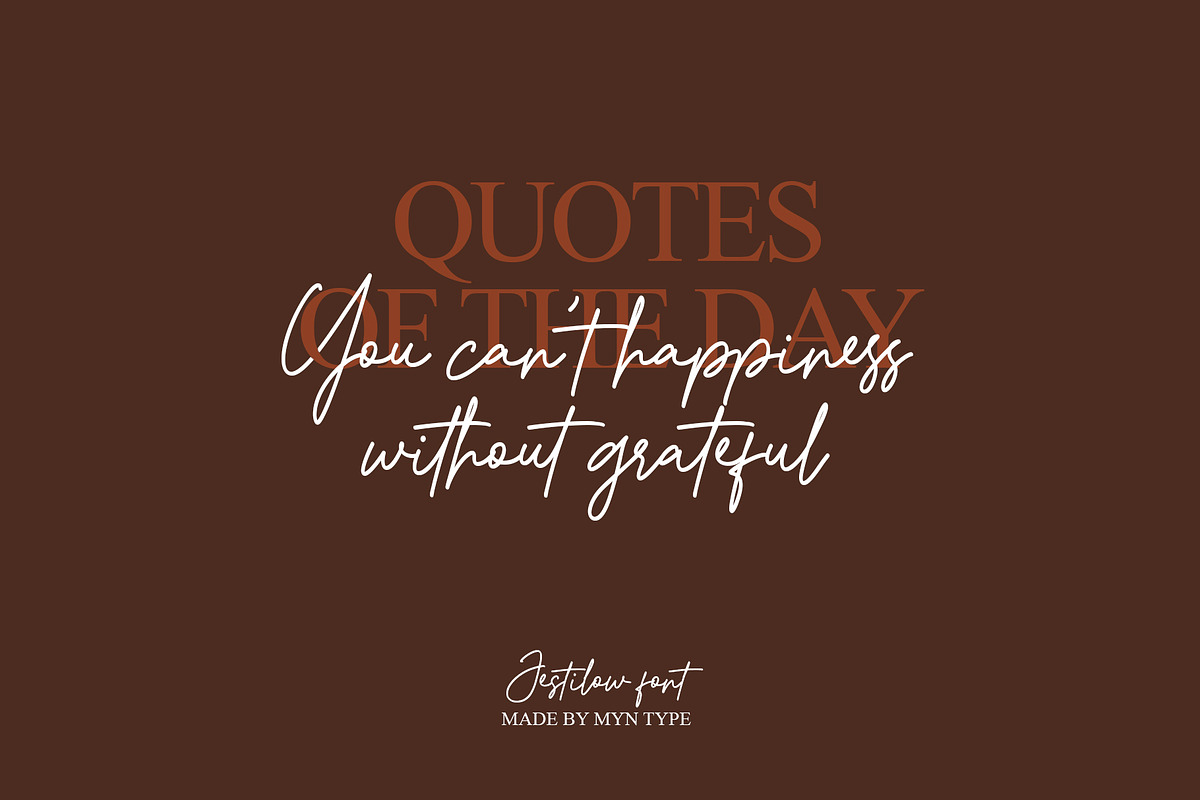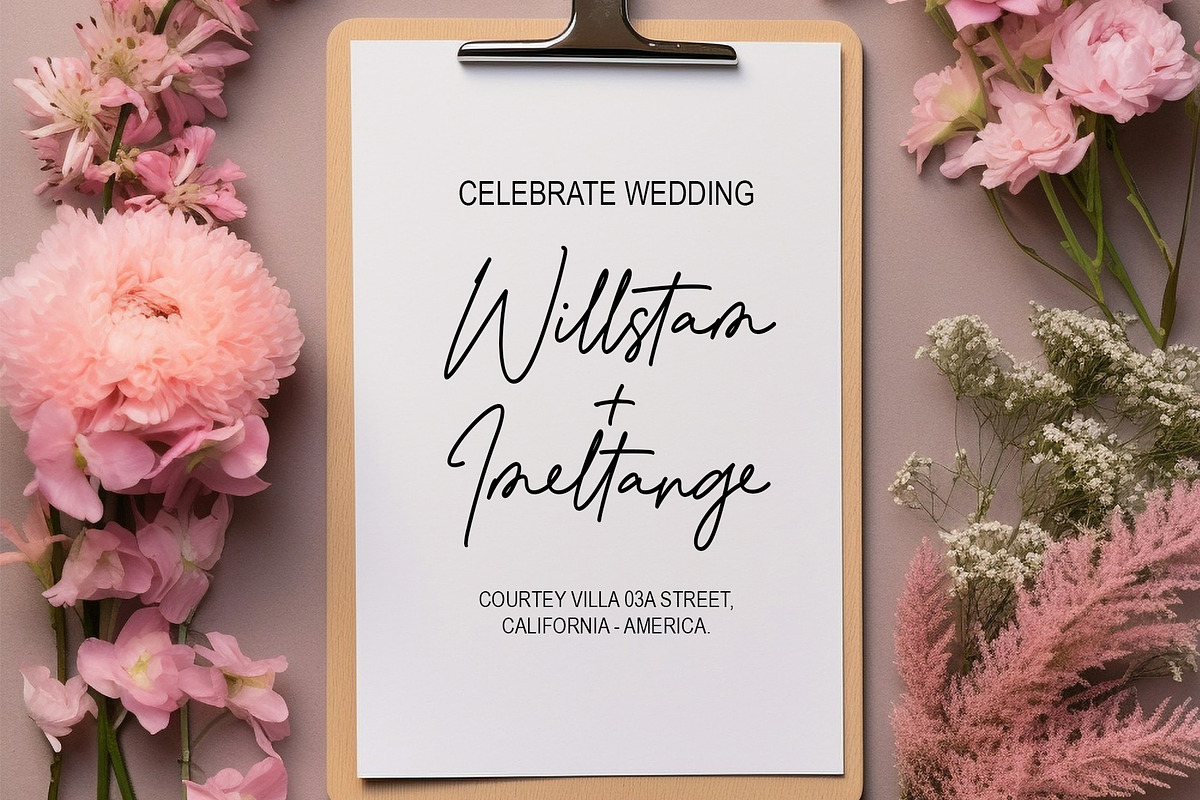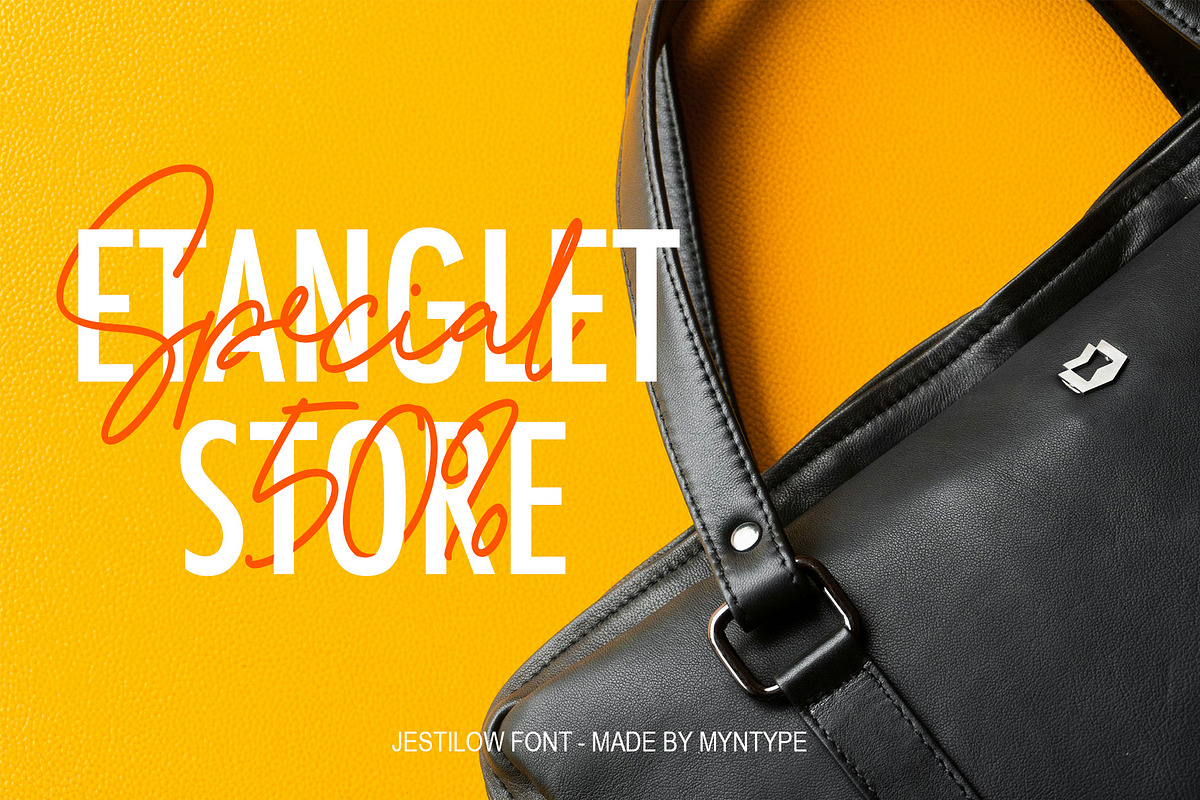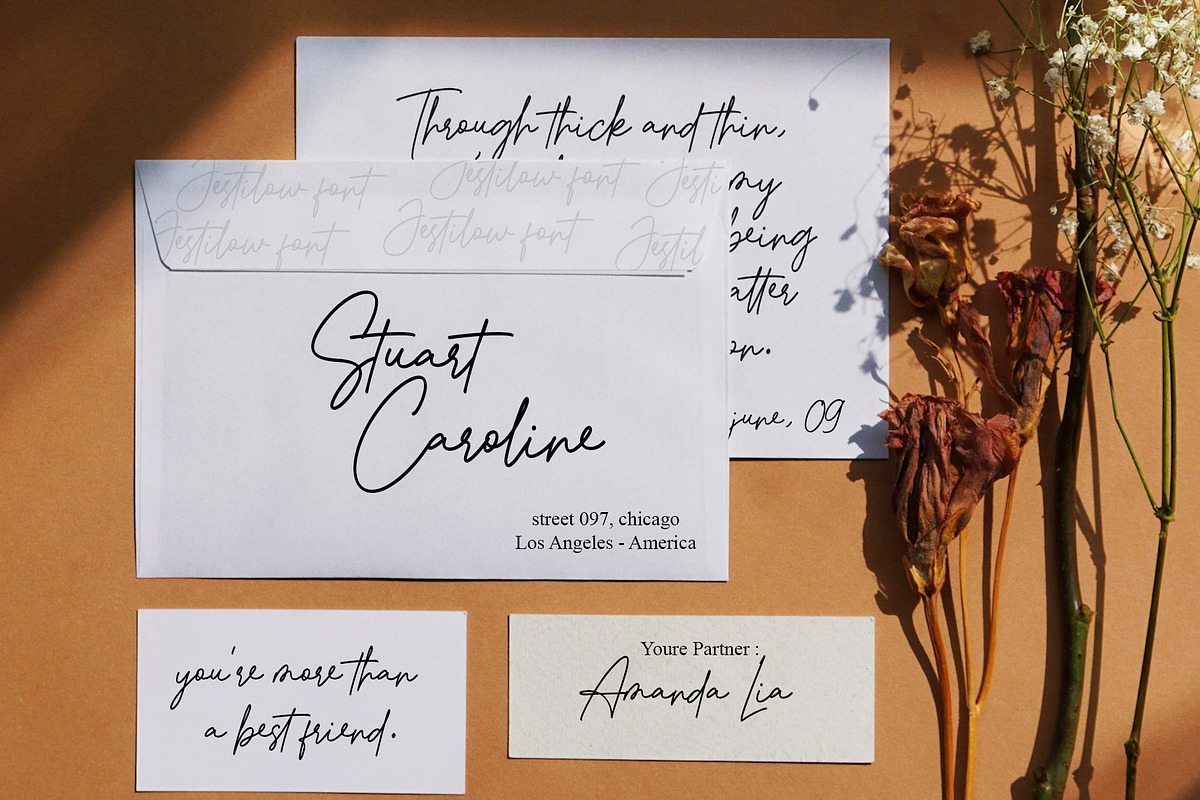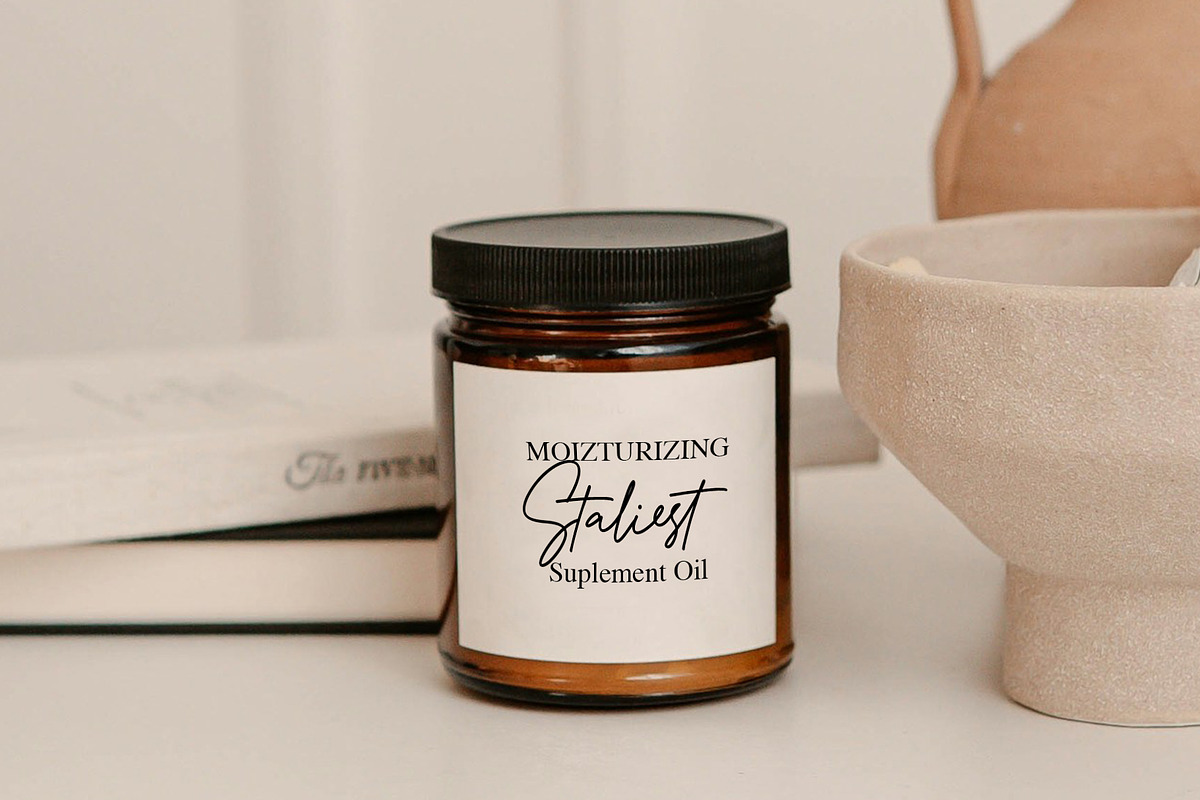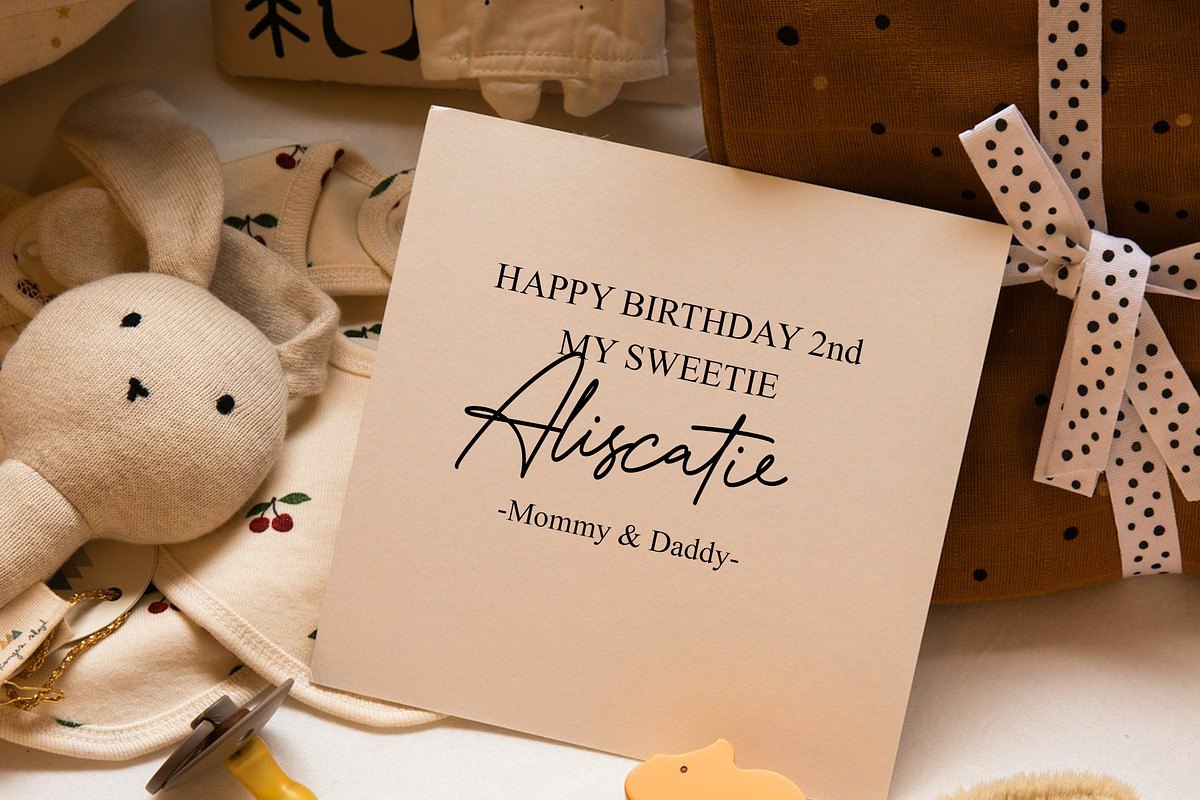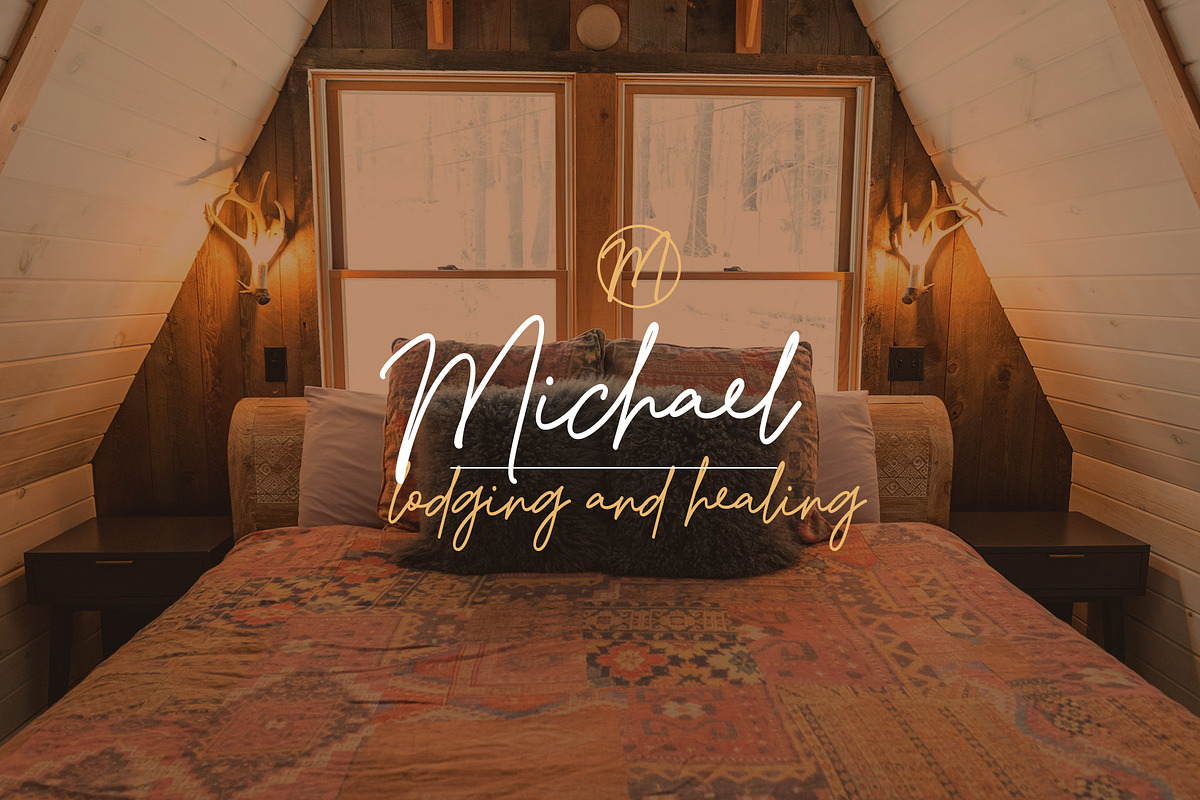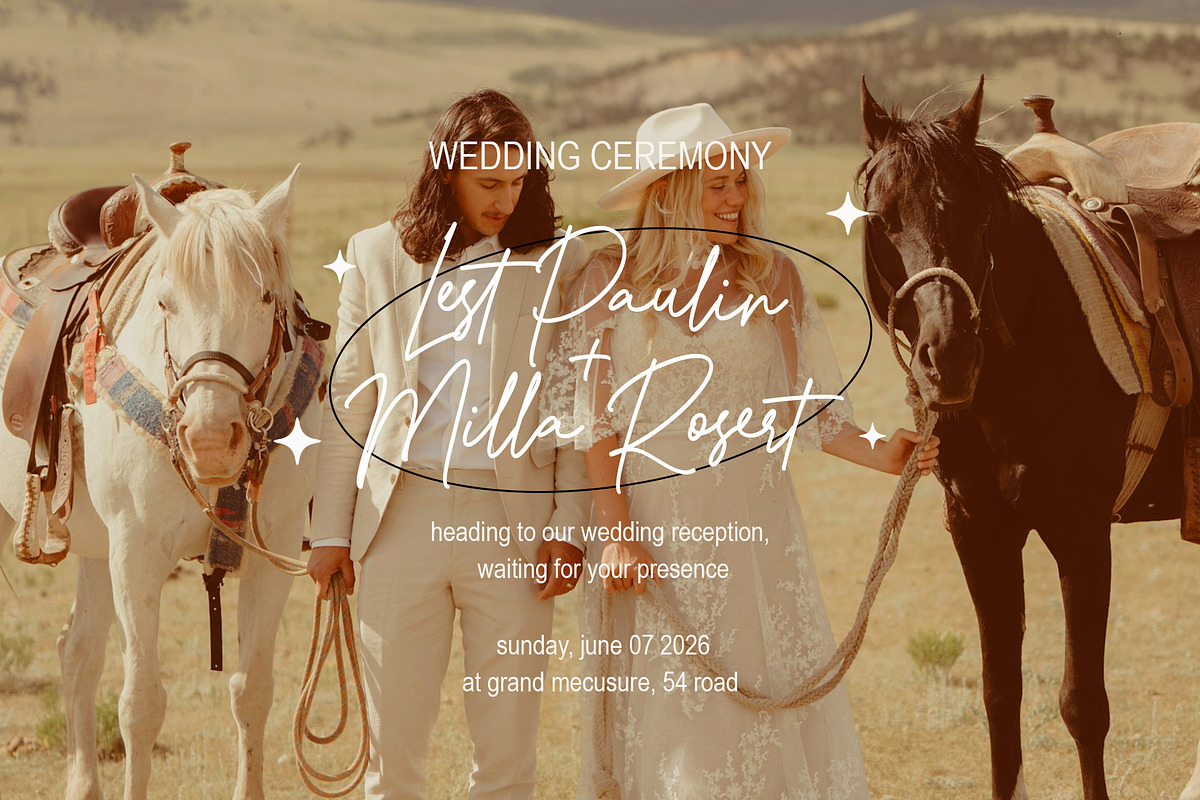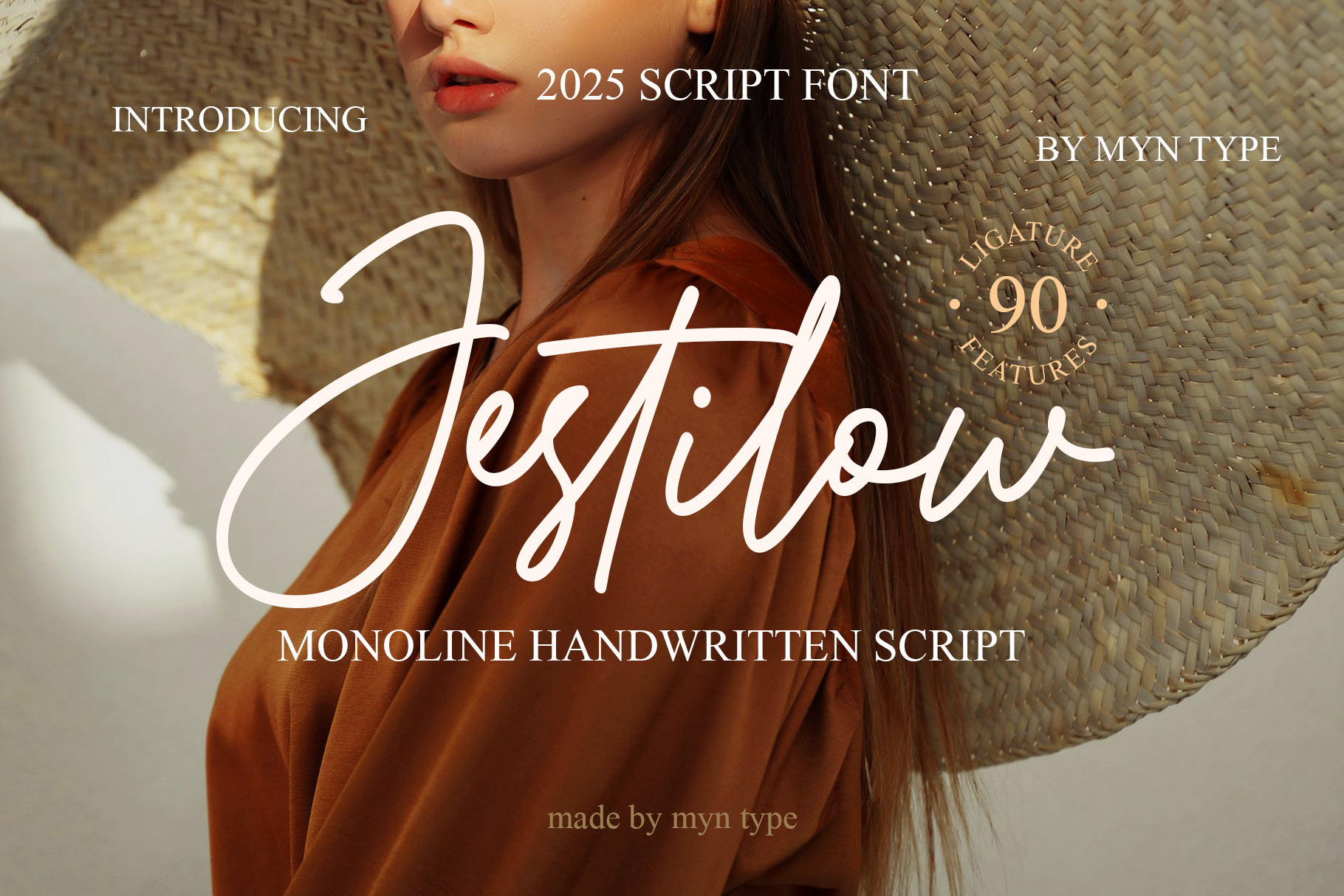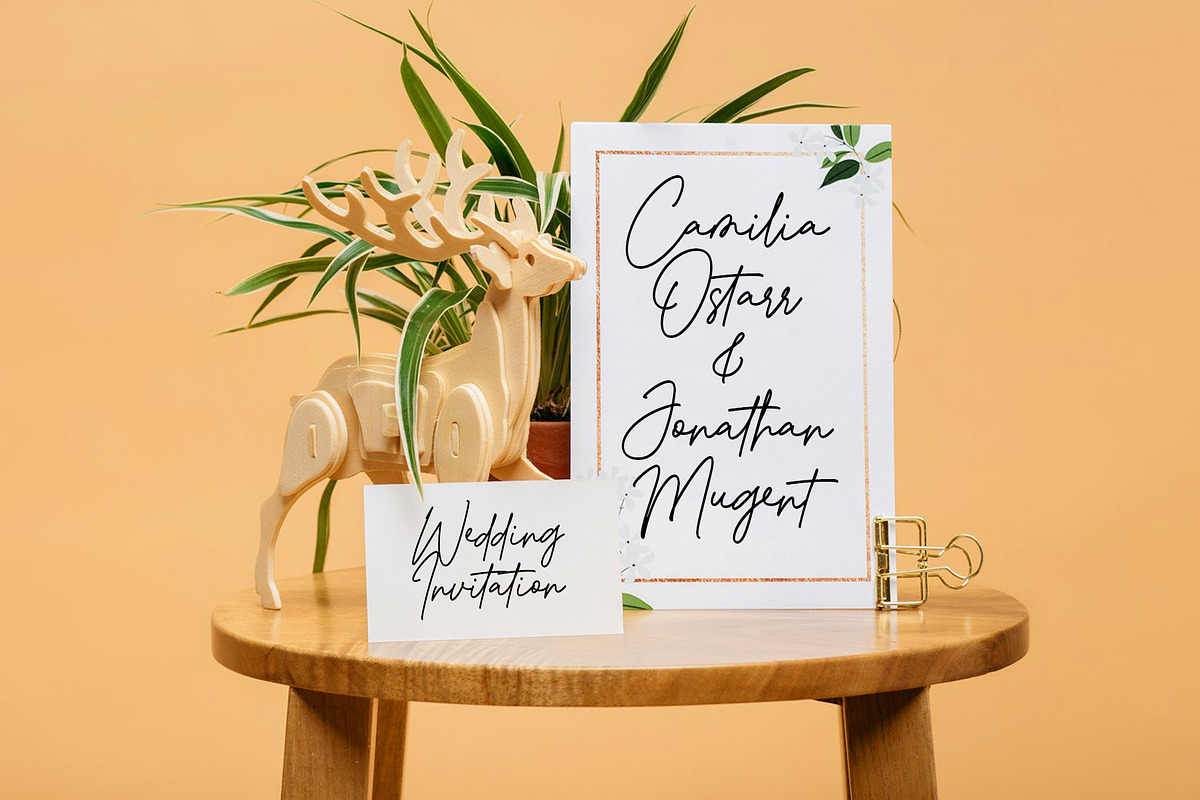
Jestilow - Monoline Handwritten Font
Jestilow is monoline handwritten script, designed with smooth single line and natural flowing strokes that brings a elegant, clean, and personal feel. Includes the ligatures letter to give your typography a more authentic, aesthetic, and stylistic handwritten look to your designs.
This font perfect for branding projects, wedding designs, logos, display product, calligraphy titles, social media posts, quotes, invitations designs, and product packaging. Wheter you're a designer, crafter, or small business owner, Jestilow font adds a minimalist and modern.